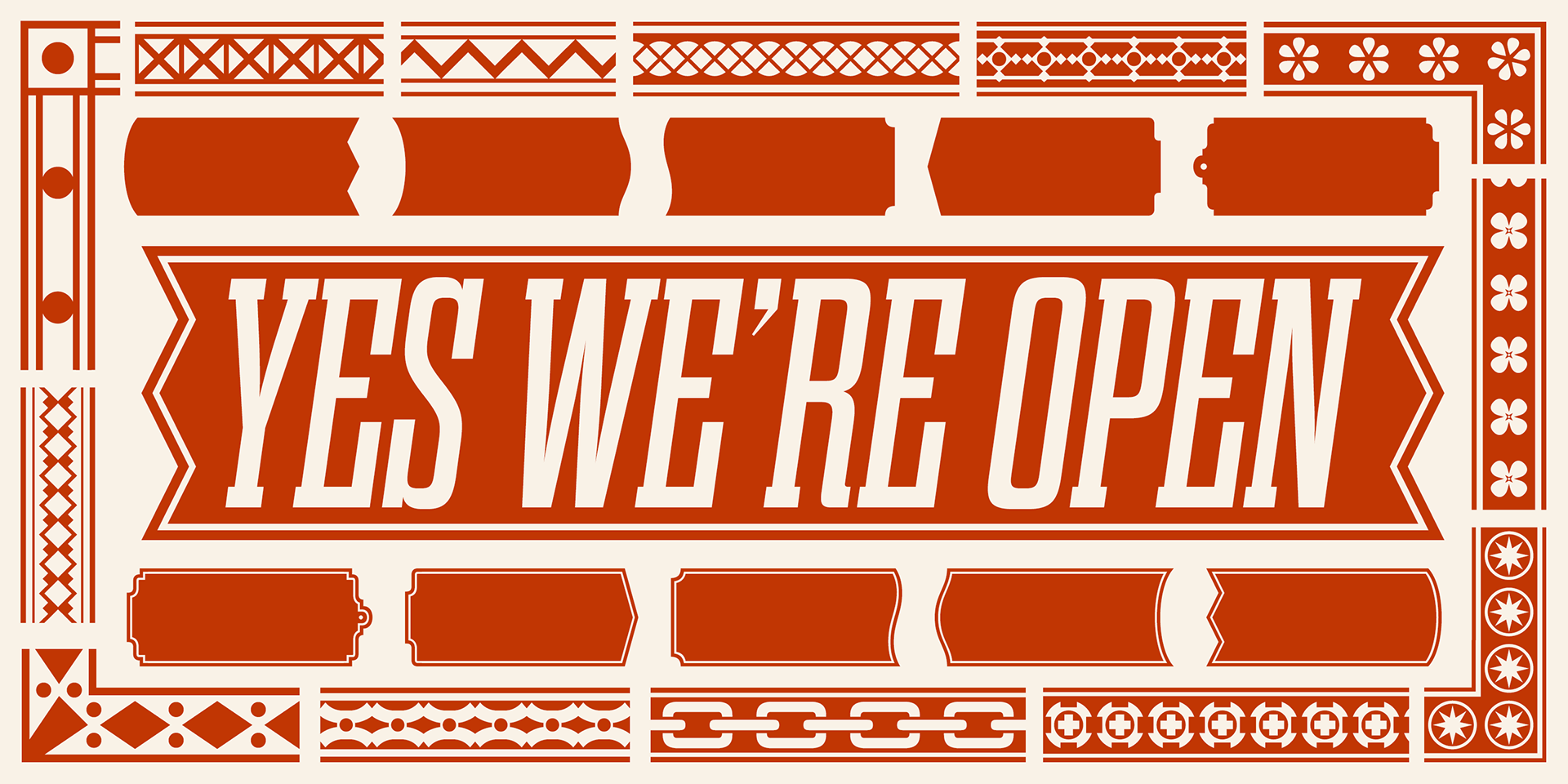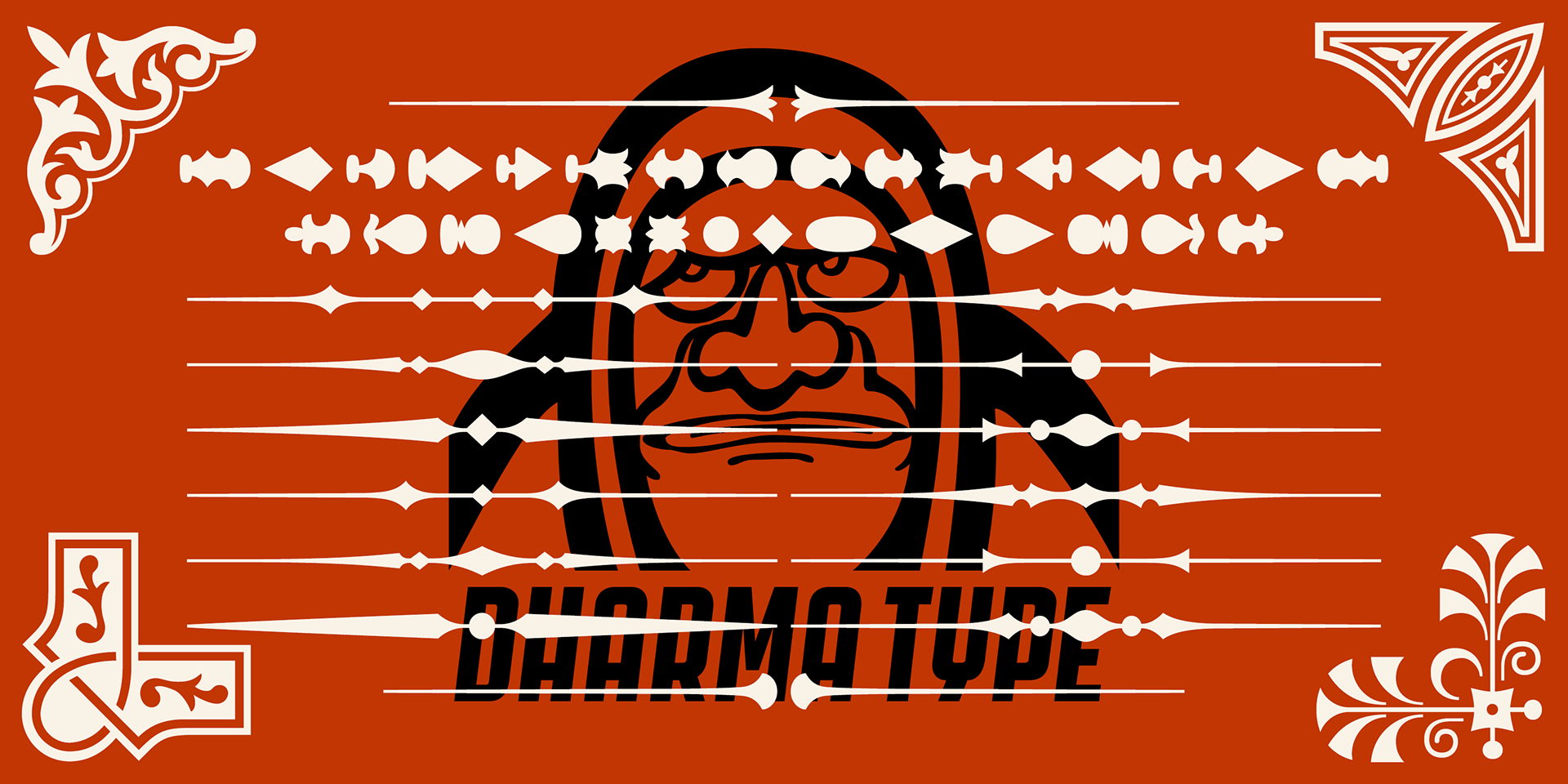
Gothic Extras
The Gothic Extras family is designed to complement typefaces such as Dharma Gothic, Dharma Slab, Rama Gothic, Rama Slab.
It includes a collection of borders, ornaments, and frames inspired by vintage catalogs from Hamilton in the 1800s, adding a classic and decorative touch to your typographic compositions.